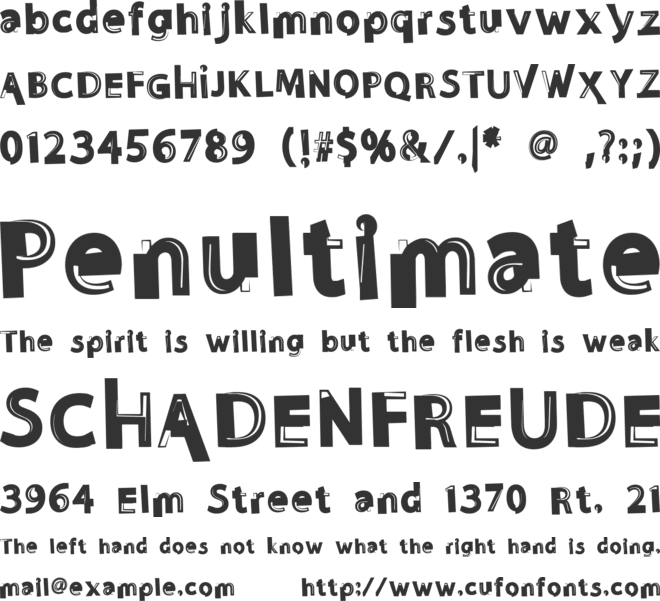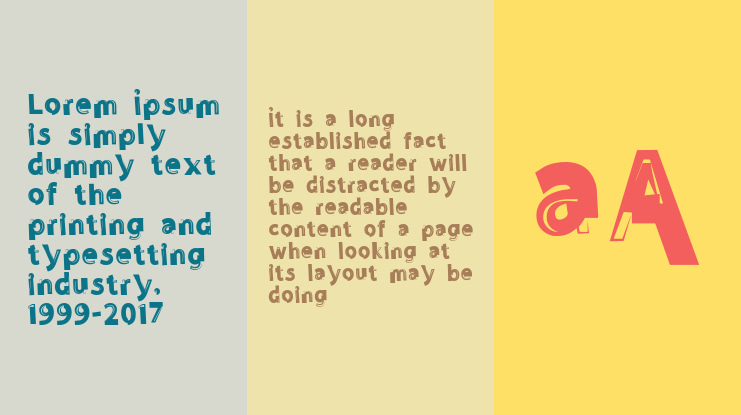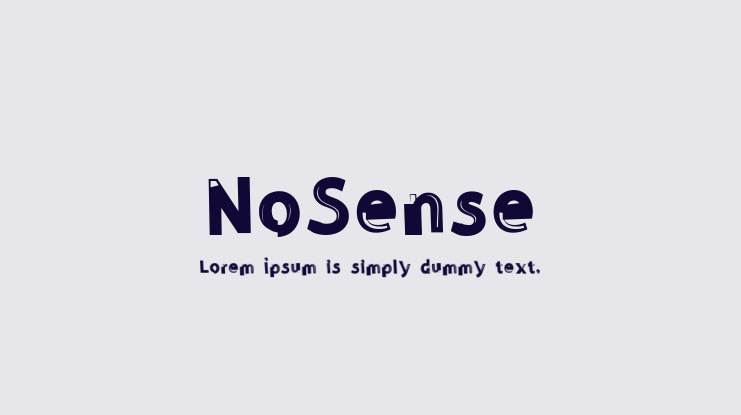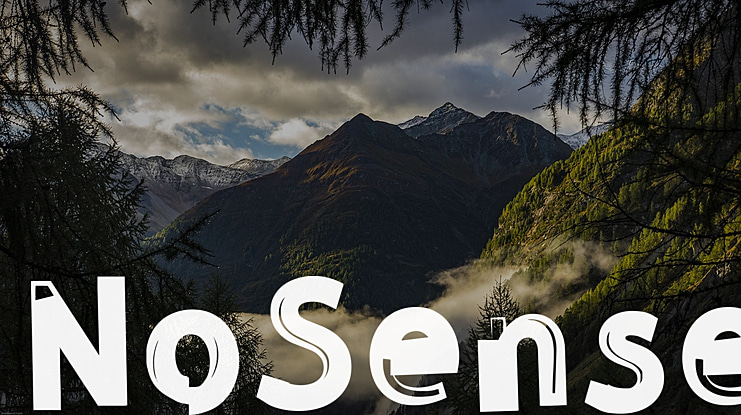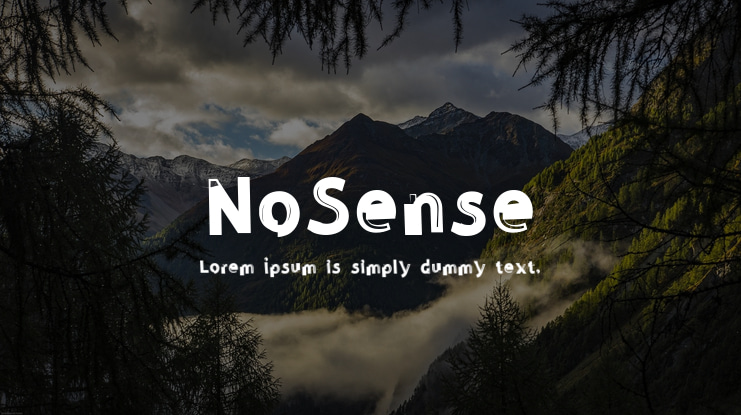
Setting type has been an occupation and a passion of mine over the last 30 years. After completing some schooling at Cooper School of Art in Downtown Cleveland I accepted a position at Peto's Type House. Back then, the Cleveland Press still set type with 'Hot' lead. I know, this dates me, but the facts are the facts. PhotoType was in it's infancy with the Linotronic 5700 being top-of-the-line technology in Photo type setting. My job at Peto's was more modest, among other things, I was hired to set headline type on what was called a 'Typositor'. It was still photo type setting but for headlines only. Letters had to be set (exposed), one letter at a time. A single headline of lets say15 words or so could take an hour or two to completely finish for paste-up, that's right, I said paste-up. That should really date me!! By doing this day in and day out (for hours on end) I gained a "close-up' appreciation for letterforms and spacing. Ernie Peto would also quiz me on identifying type by name. It was an interesting 18 months to say the least. There have been lasting effects on my appreciation of letterforms thanks to this experience.
Over the years, there have been spin offs of wood type, Times Roman, Helvetica, etc. Seems to me like we are just going over the same ground over again. What interests me is not the 'sameness' in the letterforms or their 'invisibility' in the graphics world. Some fonts are used to be 'invisible'. What I mean by this is that they are merely a communication tool to deliver the authors' / writers' message. the artistry in the forms lies in their ability to stay invisible and be easy to read.
But their 'uniqueness' and how that difference translates to the printed page. There are many ways of looking at letterforms. We can look at the beauty of the individual letters themselves. Commenting on the curves of a upper case 'A' or a lower case letterform. Or we can look at them as a 'unit' and how that translates within a block of written text. It is this uniqueness that I am looking for in the fonts I design. More...
I do look at each individual letterform and revel in the beauty of the forms and lines. But I also want to create a Font that when written out will display some unusual and unexpected characteristics when in a large block of text. Look for different line weights and forms in my font glyphs. The idea here is to allow the printed page to display uniqueness in contrast.